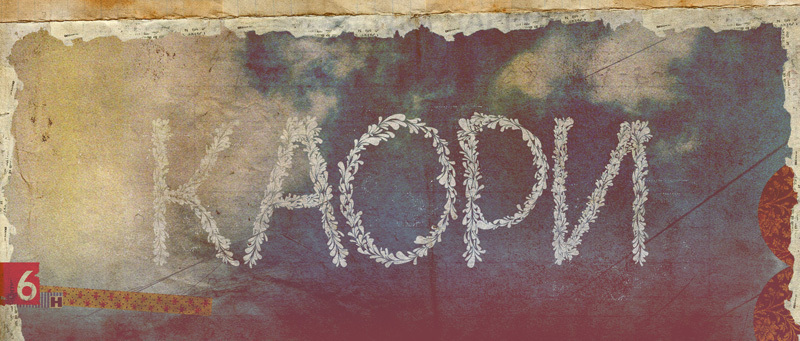
Kaori, created by Mr. Frukta in 2010, is a free floral display font whose letters are built from curling stems and dense clusters of pointed leaves. The open, airy forms feel delicate rather than formal.
It is especially convincing for botanical event invitations, where the leafy silhouettes can echo wreaths, borders, and other plant illustrations without needing a separate ornamental alphabet. The same sprig-like construction can shape logos for florists and garden shops, or give tea packaging a hand-cut botanical identity.